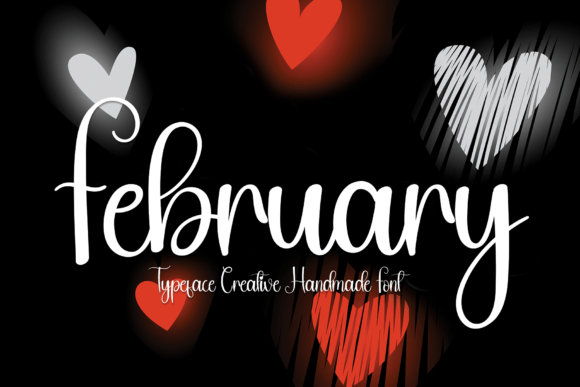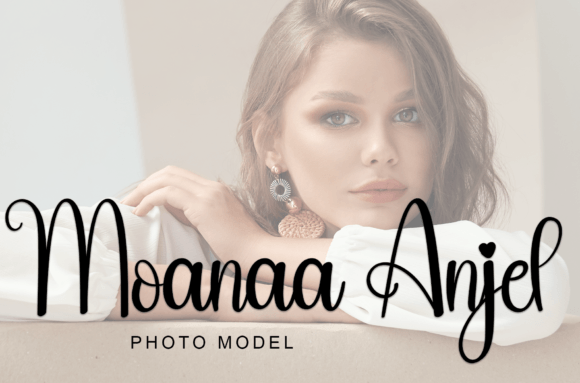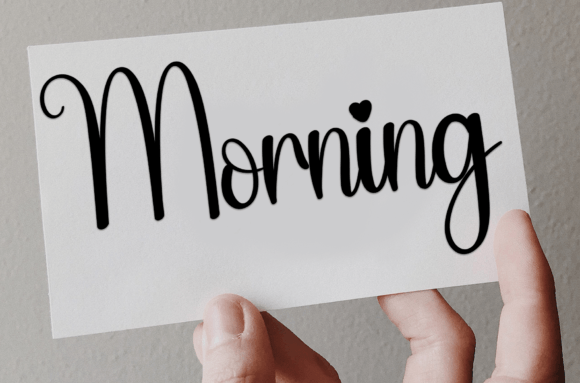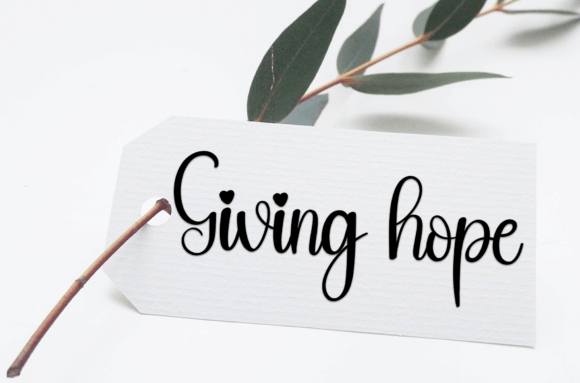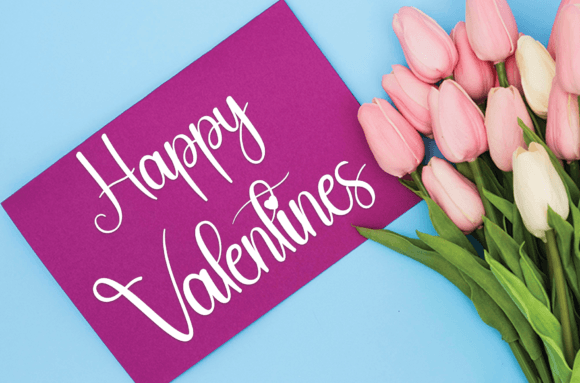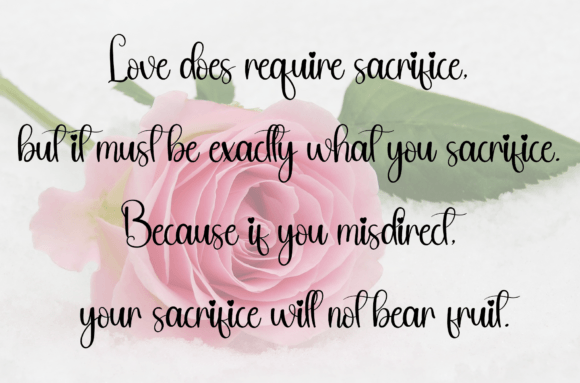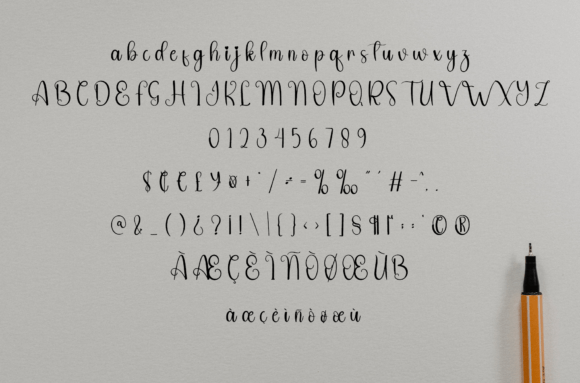
February Font
What Is February Font?
February Font is a delightful handwritten script designed to bring a cheerful and playful feel to your creative work. Each letter has smooth, flowing curves that feel warm and inviting. This combination of friendly style and clean design makes February Font the perfect choice for projects that need a personal, handcrafted touch.
The font blends modern simplicity with a touch of whimsy, so your designs feel both professional and full of character.
February Font is incredibly versatile and adapts beautifully to many types of projects. For example, it looks wonderful on wedding invitations, save-the-date cards, and thank-you notes. The handwritten style adds a romantic, uplifting vibe that guests will remember.
Greeting cards for birthdays, anniversaries, or holidays also stand out with this font’s sweet personality. The friendly letters make every message feel genuine and thoughtful.
If you design logos, February Font can help your brand look approachable and unique. Boutiques, bakeries, artisan shops, and creative studios often use handwritten scripts to share their warmth and originality. February Font helps you create a memorable, welcoming brand identity.
This font is also perfect for social media graphics. Quotes, announcements, and promotions look more engaging and cohesive with February Font’s clean, playful script.
Additionally, it works beautifully on product packaging and labels. From handmade candles to gourmet treats, this font adds a personal, high-quality feel that customers appreciate.
Why Should You Choose February Font?
One of the top reasons to choose February Font is its readability. Even with its cute, playful look, each letter remains clear and easy to read at any size. Whether you’re designing a small label or a large banner, your text will look polished and professional.
Another advantage is how easily it pairs with other fonts. You can combine February Font with simple serif or sans-serif typefaces to balance the decorative script. This pairing helps you create designs that are both stylish and easy to read.
Designers appreciate that February Font saves time without compromising quality. Every glyph is crafted to look refined straight out of the box, so you can deliver beautiful work faster.
February Font brings authenticity and joy to any project. Its smooth, handwritten letters help you connect with your audience and create designs that feel personal and thoughtful. This connection is especially important for projects celebrating special moments or sharing heartfelt messages.
The font’s playful curves also add movement and energy to your layouts. Even simple designs feel more dynamic and memorable when you use February Font.
Choosing a high-quality handwritten script shows you care about detail and presentation. Clients and customers will notice this effort, which builds trust and strengthens your brand’s reputation.
February Font is more than a cute handwritten script—it’s a creative tool that helps you share your ideas with warmth and charm. From wedding invitations to logos and social media graphics, this font adapts to many uses and always makes a positive impression.